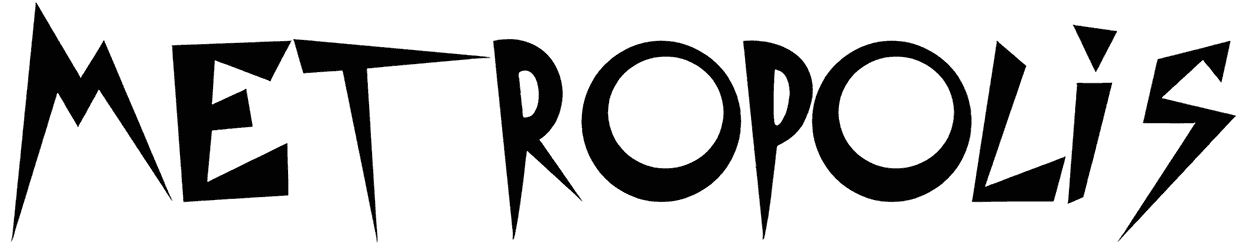
Metropolis Font
You may use the sharp font Metropolis to give your digital projects a distinctive character while also assisting you in reaching your professional goals. Your presentation will have a touch of intimidating mood with this fancy font.
This interesting font is an exceptional choice for logotypes, book titles, retro designs, and spooky movies, but it doesn’t contain lowercase letters. By taking a chance, you can put an end to time-consuming routines and try something new.
METROPOLIS font: directly from the “capolavoro” of FRITZ LANG, the original font of the title, from
the second musical version of Giorgio Moroder.